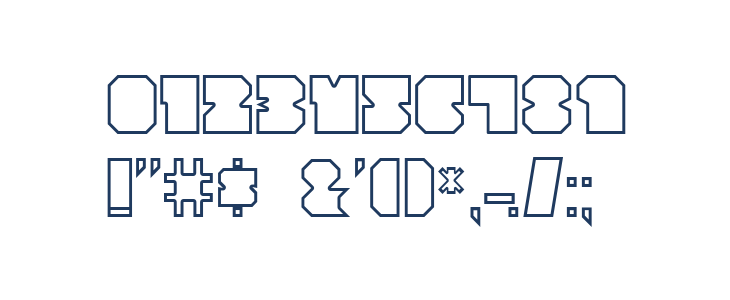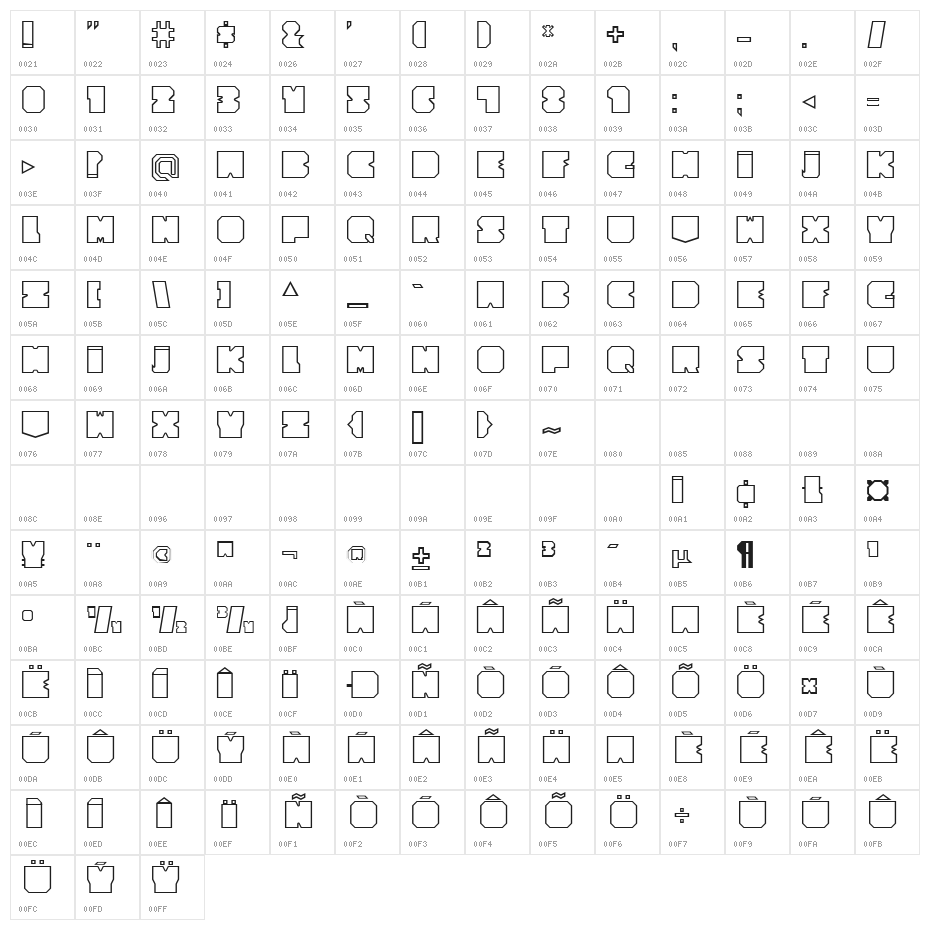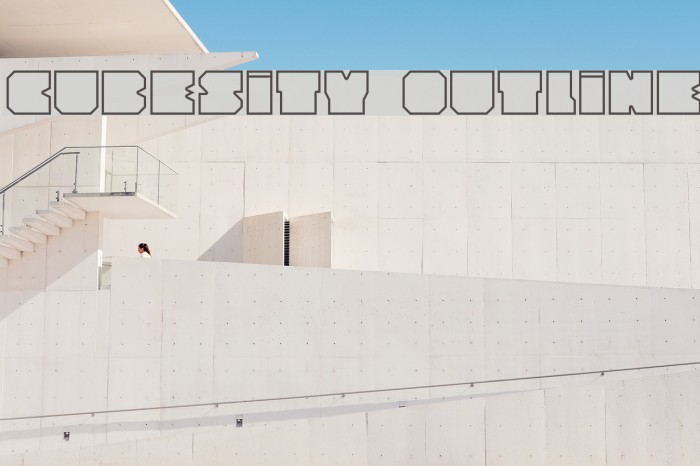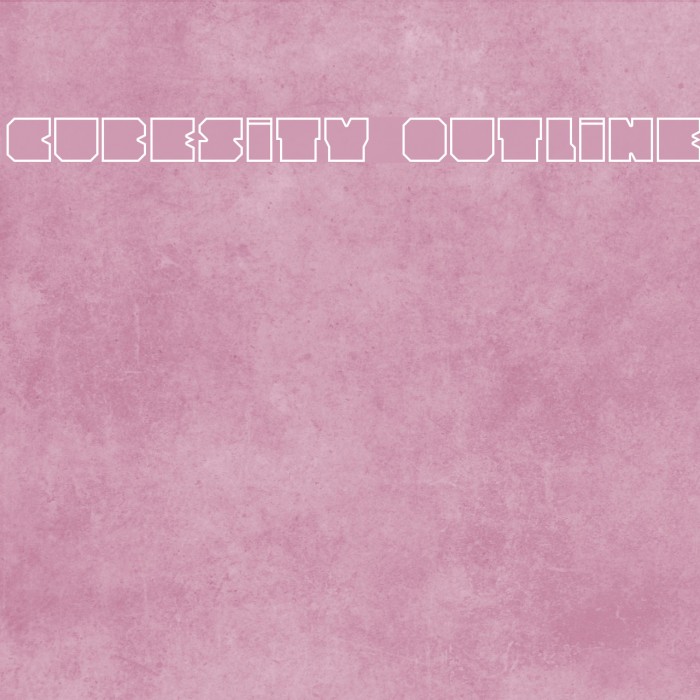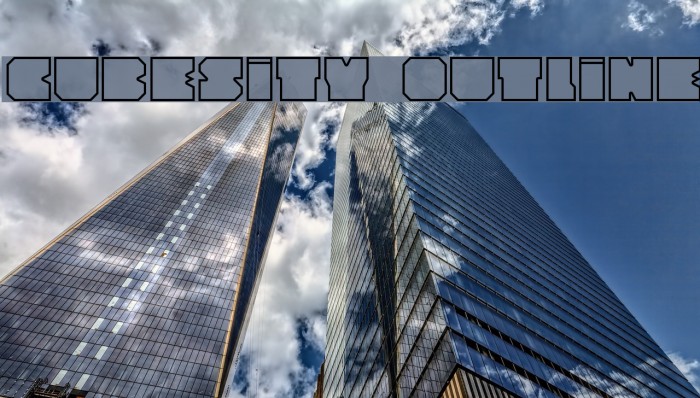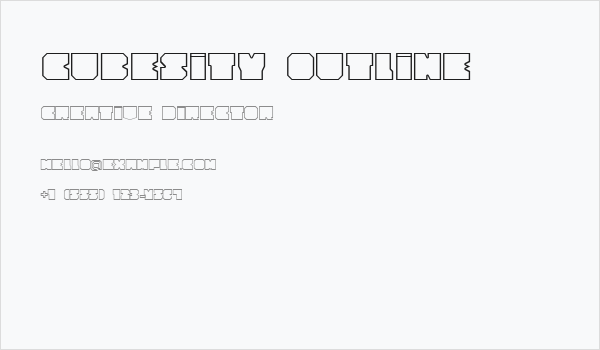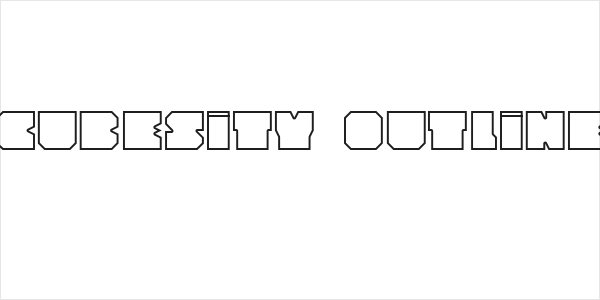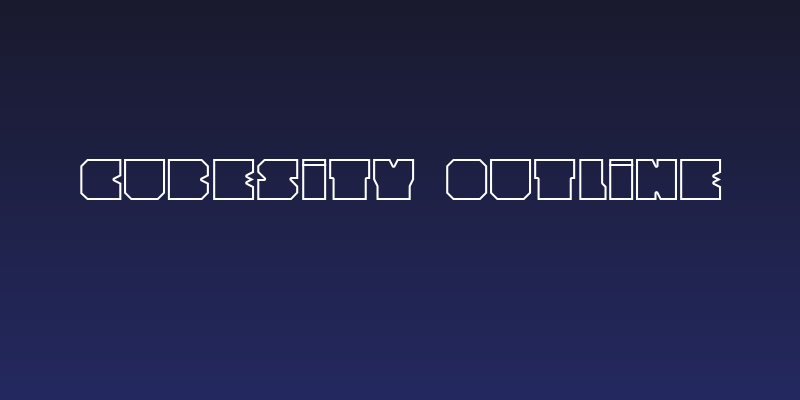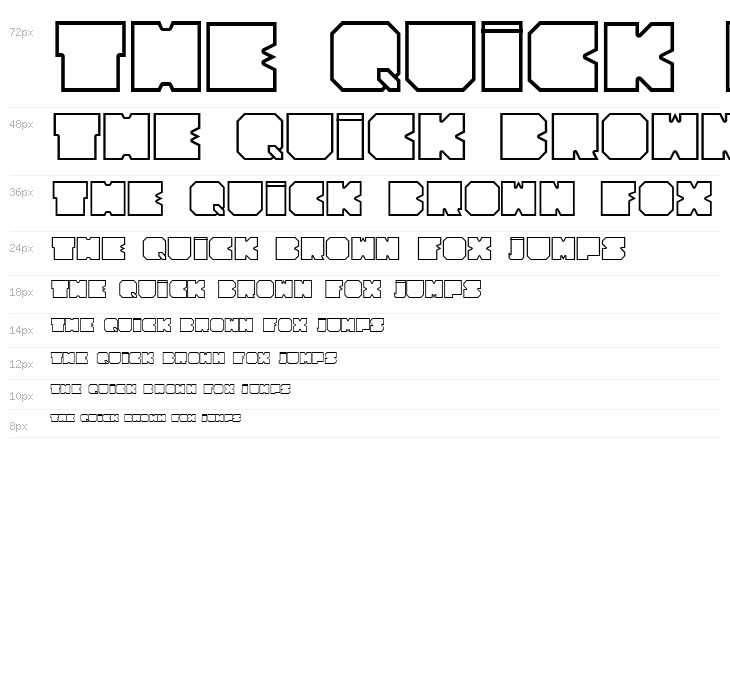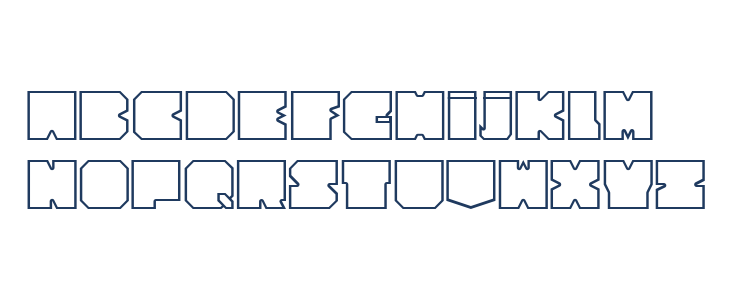
Cubesity outline Font
Cubesity outline Description
This font features a bold, geometric outline style with a distinctive cubic appearance. Each character is constructed with sharp angles and straight lines, creating a modern and futuristic look. The uniformity in the design gives it a cohesive and structured feel, while the outline adds a sense of openness and lightness. The characters are evenly spaced, maintaining a consistent visual rhythm. This font is ideal for projects that require a strong, impactful presence, such as branding, posters, or digital media. Its unique style makes it stand out, offering a fresh take on traditional geometric fonts.
| Proposed Projects | Ideal for branding, posters, digital media, and any project needing a strong, modern aesthetic. |